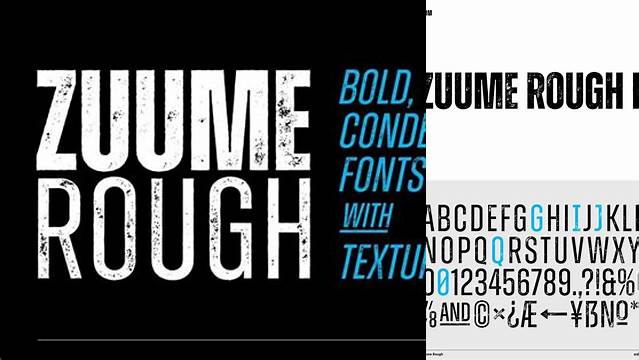
Zuume Rough Font: Free Download & Creative Uses
Hey guys! Are you on the hunt for a font that screams boldness, authenticity, and a touch of raw energy? Look no further! Today, we're diving deep into the world of Zuume Rough font, a fantastic typeface that's not only visually striking but also available for free download. Whether you're a seasoned designer or just starting your creative journey, Zuume Rough might just be the secret ingredient you need to spice up your projects. This article will explore everything you need to know about Zuume Rough, from its unique characteristics and ideal use cases to where you can snag it for free and how to best implement it in your designs. Get ready to unleash your creativity with this amazing font!
What Makes Zuume Rough Font So Special?
So, what exactly makes Zuume Rough stand out from the crowd? Well, it's all in the details, guys. This font boasts a distinctive rough, textured appearance, giving it a handcrafted, almost vintage feel. Imagine the look of hand-lettered signage or a weathered poster – that's the kind of vibe Zuume Rough brings to the table. This unique characteristic makes it perfect for projects that need a touch of grit, authenticity, or a personal touch. Forget sterile, cookie-cutter fonts; Zuume Rough is all about character and individuality. The irregular edges and distressed texture add a sense of dynamism and energy that's hard to ignore. But it's not just about the rough edges; Zuume Rough also boasts a strong, legible letterform, ensuring that your message is not only stylish but also clear and readable. This is a crucial balance, as some textured fonts can sacrifice readability for aesthetics. Zuume Rough, however, manages to nail both. Whether you're working on a website header, a logo, or a poster design, Zuume Rough can add a unique visual flavor that sets your work apart. Its versatility stems from its ability to evoke a range of emotions, from nostalgia and rusticity to strength and rebelliousness. This makes it a valuable asset in any designer's toolkit. Furthermore, Zuume Rough's design incorporates a subtle sense of movement, as if the letters were painted quickly and spontaneously. This adds to its handcrafted appeal and makes it feel less static than some other fonts. When you use Zuume Rough, you're not just choosing a typeface; you're choosing a statement. You're saying that your project is bold, authentic, and unafraid to stand out. In a world of increasingly polished and digital designs, Zuume Rough offers a refreshing dose of human touch and raw energy. That's why it's so special and why it's become a favorite among designers looking to add a bit of edge to their work. Plus, the fact that it's available for free download makes it even more appealing, giving everyone the opportunity to experiment with its unique aesthetic.
Ideal Use Cases for Zuume Rough
Now that we've established what makes Zuume Rough so cool, let's talk about where it really shines. This font isn't a one-size-fits-all solution, but in the right context, it can be absolutely killer. Think about projects that need a vintage, rustic, or handcrafted vibe. Zuume Rough is perfect for these kinds of designs. Imagine using it for a craft brewery's logo, a coffee shop's menu, or a band's album artwork. The textured appearance adds a touch of authenticity that's hard to replicate with cleaner, more modern fonts. Branding projects that aim to convey a sense of heritage, quality, or artisanal craftsmanship can also greatly benefit from Zuume Rough. For instance, a leather goods company or a vintage clothing store could use this font to create a logo and visual identity that feels both timeless and unique. The font's rough edges suggest a sense of durability and handcrafted quality, which perfectly aligns with the brand's message. But Zuume Rough isn't just limited to vintage-inspired designs. It can also be used effectively in contemporary projects that need a touch of edge or personality. Think about using it for a website header, a social media graphic, or a poster for a music festival. The font's boldness and unique texture can help your message stand out in a crowded digital landscape. Poster designs, in particular, are a fantastic canvas for Zuume Rough. Its distressed appearance lends itself well to promoting events, concerts, or even social causes where a raw, impactful visual is desired. The font can also be used to create a sense of urgency or excitement, making it suitable for promotional materials that need to grab attention quickly. Logos that require a strong, memorable visual identity can also benefit from Zuume Rough's distinctive character. However, it's crucial to pair it with simpler fonts for body text to maintain readability. Using Zuume Rough sparingly and strategically can create a powerful visual impact without overwhelming the overall design. Ultimately, the ideal use cases for Zuume Rough depend on the specific project and the message you're trying to convey. But if you're looking for a font that's bold, authentic, and full of character, Zuume Rough is definitely worth considering. Its versatility and unique aesthetic make it a valuable asset in any designer's toolkit, allowing you to create designs that are both visually striking and deeply engaging.
Tips for Using Zuume Rough Effectively
Alright, you've downloaded Zuume Rough, you're itching to use it, but hold your horses! Just because it's a cool font doesn't mean you can slap it on everything and expect design magic. Like any design element, Zuume Rough needs to be used thoughtfully and strategically to achieve the best results. So, let's dive into some tips for using Zuume Rough effectively. First and foremost, consider context. As we discussed earlier, Zuume Rough shines in projects that need a vintage, rustic, or handcrafted feel. Think about the overall message you're trying to convey and whether the font's rough texture aligns with that message. If you're designing a sleek, modern website, Zuume Rough might feel out of place. But if you're working on a poster for a local brewery or a logo for a vintage store, it could be a perfect fit. Pairing is key. Zuume Rough is a strong, characterful font, so it's best paired with simpler, more neutral fonts for body text. Think about sans-serif fonts like Helvetica or Arial, or classic serif fonts like Times New Roman or Garamond. These fonts will provide a clean contrast to Zuume Rough's texture and ensure readability. Avoid pairing Zuume Rough with other highly stylized fonts, as this can create a cluttered and overwhelming visual. Less is more. Don't overuse Zuume Rough. Using it sparingly and strategically will create a bigger impact than using it for every headline and paragraph. Think about using it for titles, logos, or short bursts of text where you want to grab attention. Overusing it can dilute its effectiveness and make your design feel too busy. Pay attention to size and spacing. Zuume Rough's texture can make it appear slightly smaller than cleaner fonts, so you might need to increase the font size slightly to achieve the desired visual impact. Also, consider adjusting the letter spacing (tracking) and line height (leading) to ensure readability. Too little spacing can make the text feel cramped, while too much spacing can make it feel disconnected. Experiment with color and background. The color of your text and the background you place it on can greatly impact the overall look and feel of Zuume Rough. Experiment with different color combinations to find what works best for your project. Dark text on a light background is a classic choice, but you can also try using lighter text on a dark background for a more dramatic effect. Consider using textured backgrounds to complement the font's roughness, or clean backgrounds to create a striking contrast. Finally, don't be afraid to experiment. The best way to learn how to use Zuume Rough effectively is to play around with it and see what works. Try different combinations of size, spacing, color, and background to discover its full potential. And most importantly, have fun and let your creativity flow! Remember, guys, design is all about experimentation and finding what works best for your unique vision.
In conclusion, guys, Zuume Rough font is a fantastic addition to any designer's toolkit. Its unique texture and bold character make it ideal for projects that need a touch of authenticity, vintage charm, or raw energy. Whether you're working on branding, posters, websites, or any other creative endeavor, Zuume Rough can help you make a statement and stand out from the crowd. Remember to download it from reputable sources, respect the licensing terms, and use it strategically in your designs. With a little experimentation and thoughtful application, Zuume Rough can become your go-to font for adding a touch of grit and personality to your work. So, go ahead, download it, and unleash your creativity! Happy designing!